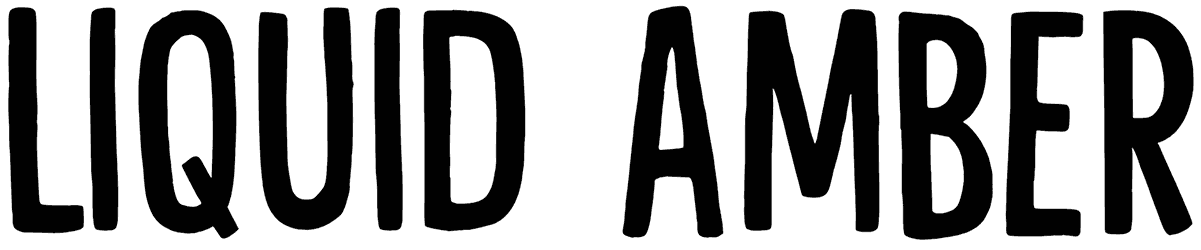
Liquid Amber Font
With a single touch of a tasteful font like Liquid Amber, you are able to give your typography a playful and cool look. This sticker font, with its unique simplicity, would be a great choice for cartoons, notebooks, website headers, posters, and flyers.